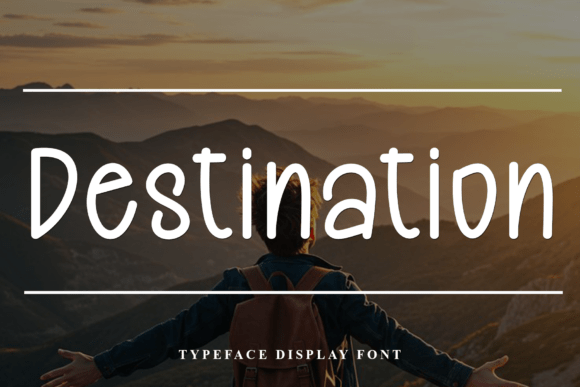
Find Your Way with Destination Font
Have you ever scrolled through a travel blog or social media feed and felt an instant urge to book a ticket to somewhere exotic? That’s the magic of a well-designed destination piece – it can transport us to far-off lands and inspire us to explore the world. As designers, we know that the right font can make all the difference in conveying that sense of adventure and possibility.
Enter Destination Font, a playful and friendly display font that’s perfect for capturing the spirit of travel and exploration. With its clean, hand-drawn feel and rounded strokes, Destination Font is a great choice for travel posters, social media graphics, and lifestyle branding. Whether you’re designing a travel brochure or a social media campaign, this font brings a sense of excitement and positivity to any project.
For designers, Destination Font is a valuable tool for creating engaging and memorable designs that resonate with audiences. Its versatility and friendly feel make it a great addition to any design arsenal, and its ability to evoke a sense of adventure and possibility makes it a must-have for any project that requires a little wanderlust.
Destination Font Key Features
- Font Family: Destination Font offers a range of unique and stylish font families, including sans-serif, serif, script, and display fonts.
- Unique Characteristics: Destination Font features a distinctive blend of modern and vintage elements, with intricate details and subtle nuances that set it apart from other fonts.
Destination Font Review
Overall, I’m really impressed with Destination Font. It’s a beautiful, modern sans-serif font that’s perfect for travel and adventure-related projects. ✨ The font is highly customizable, with a wide range of weights and styles to choose from. It’s also super versatile, working well for both digital and print applications.
- Highly customizable with multiple weights and styles
- Perfect for travel and adventure-related projects
- Works well for both digital and print applications
One thing to note is that the font may not be the best choice for projects that require a more formal or traditional look. ⚠️ It’s a bit too modern and edgy for those types of projects. Additionally, the font can be a bit difficult to read in smaller sizes, so be sure to test it out at different scales before finalizing your design.
Overall, I’d highly recommend Destination Font for any project that needs a modern, adventurous vibe. It’s a great choice for travel bloggers, adventure companies, and anyone looking to add a bit of excitement to their design.
Tips for Getting the Most Out of Destination Font
1. Experiment with different font sizes and colors to create visual interest.
2. Use Destination Font in combination with other design elements to create a cohesive look.
3. Consider using Destination Font for headings and subheadings to create a clear hierarchy of information.
1. Branding and identity design.
2. Brochures and flyers.
3. Social media graphics and advertising.
4. Website design and development.
Alternatives to Destination Font for Designers
System Font
System Font is a font that is pre-installed on the user’s device and can be used as a fallback for custom fonts. It’s often a sans-serif font such as Arial or Helvetica. Use System Font when you want to ensure that your text is legible on any device, regardless of the font availability.